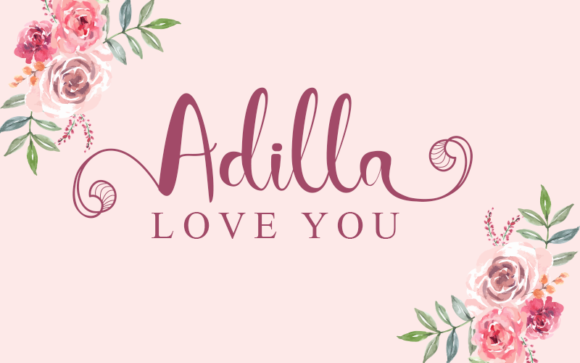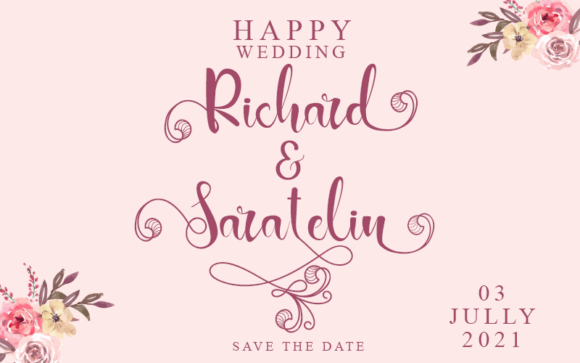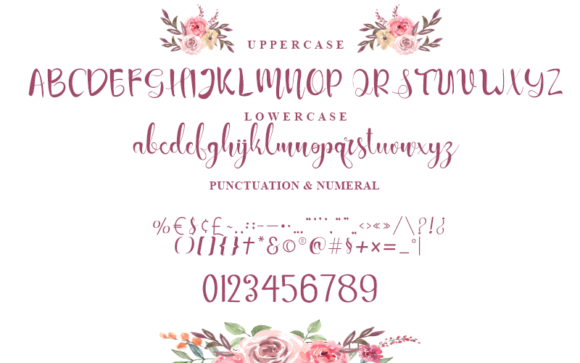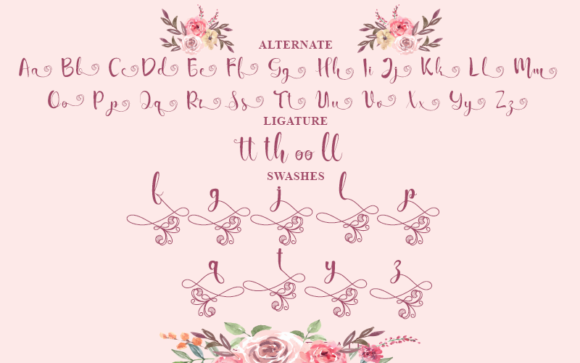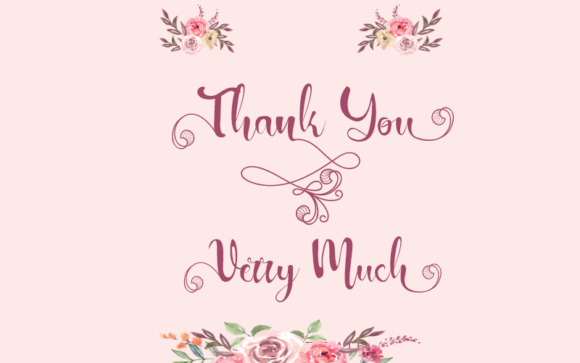
Sanillase Font
About Sanillase Font
Sanillae is a beautiful script and calligraphy font.Fall in love with its authentic feel and use it to create gorgeous wedding invitations, beautiful stationary art, eye-catching social media posts, and cute greeting cards.